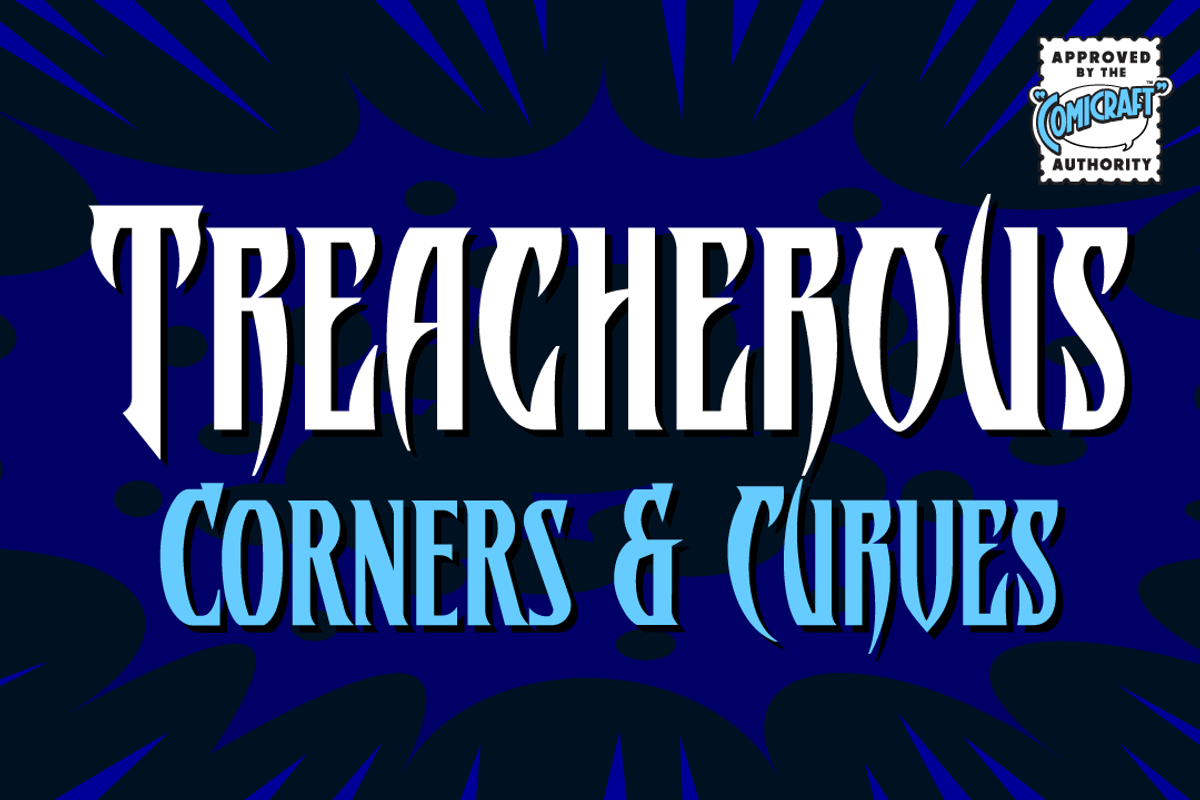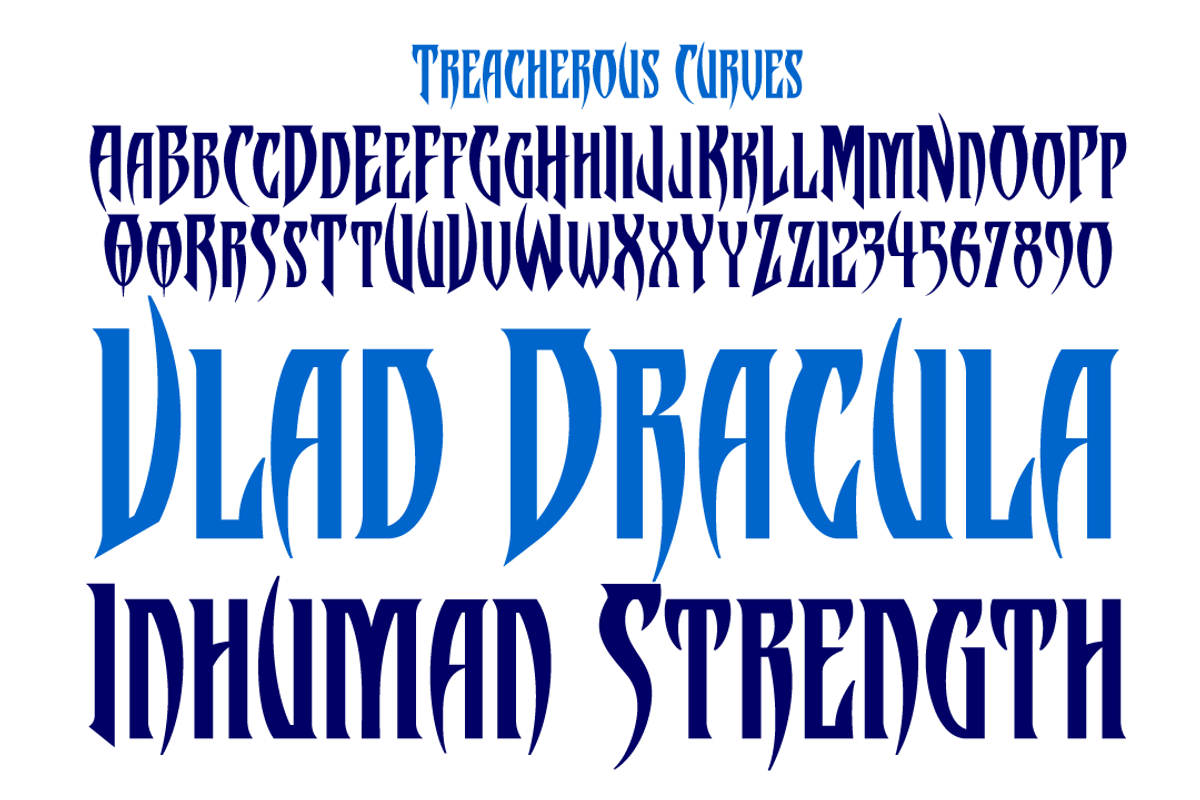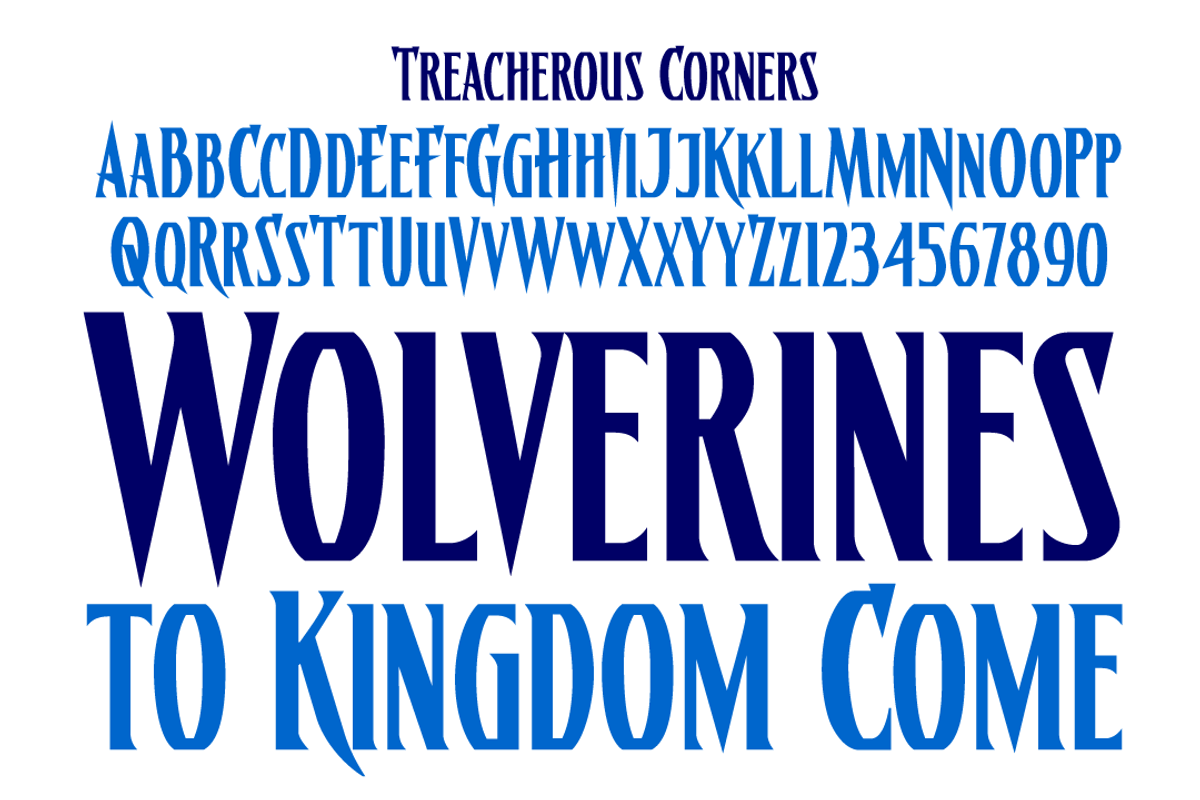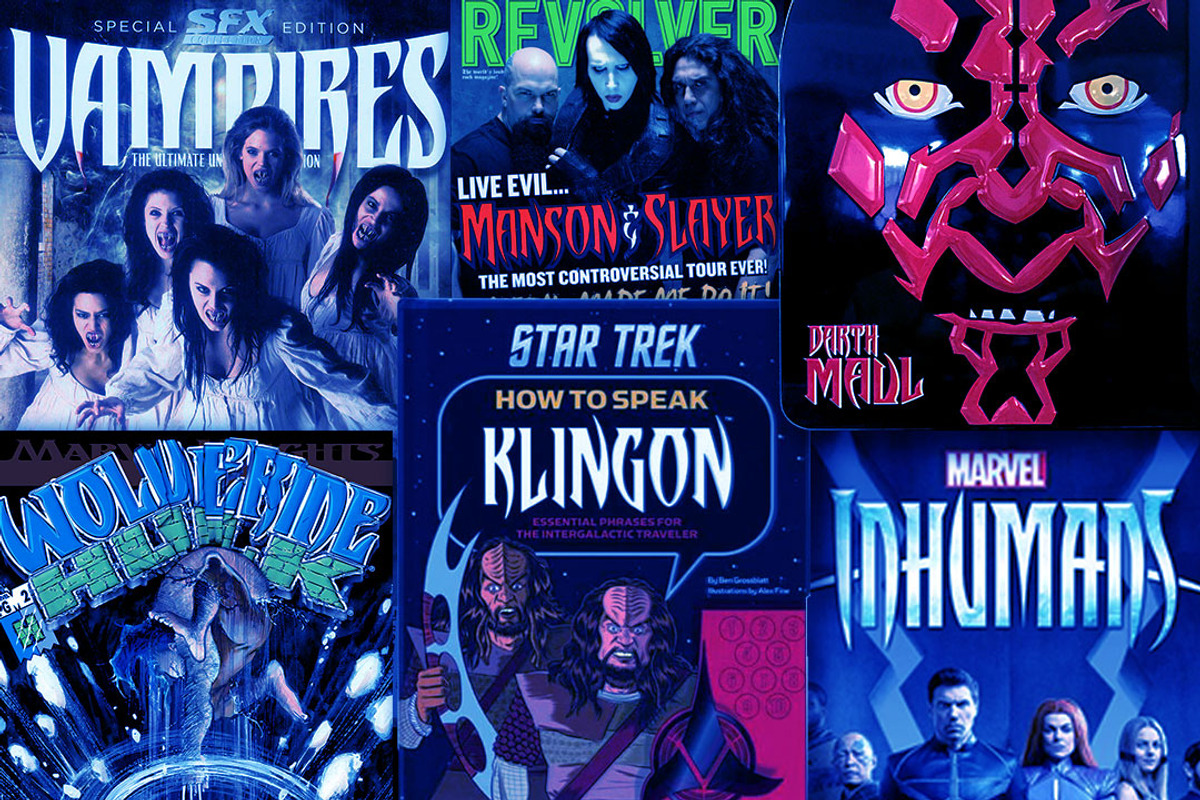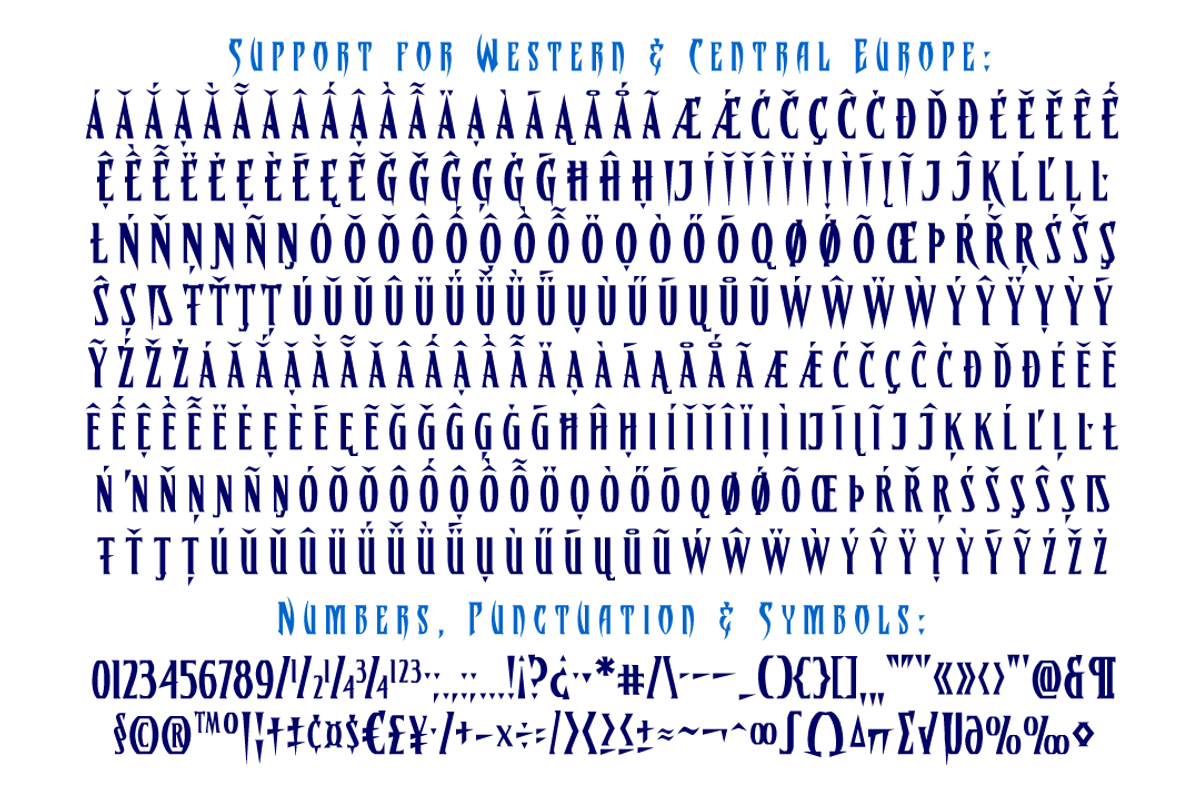
Treacherous Curves & Corners font
Midnight, Pacific Coast Highway. You're driving home alone at night and your battery's dying. Your headlights have dimmed and you can barely see the road or the signpost up ahead. But there's an eerie green light glimmering in your rear view mirror and that strange warning uttered by the pump attendant at the Devil's Elbow gas station has put the frighteners on you. Is that Satan's face glowering at you through the mist, or something far worse?
The only way to handle this font is with one foot on the gas pedal and one foot on the brake.
Originally designed for the pages of X-MEN, WOLVERINE and GAMBIT comic books, this sharp font has appeared on vampire & heavy metaal magazine covers, Star Wars & Star Trek merch, and the logo for the INHUMANS comic & TV show.